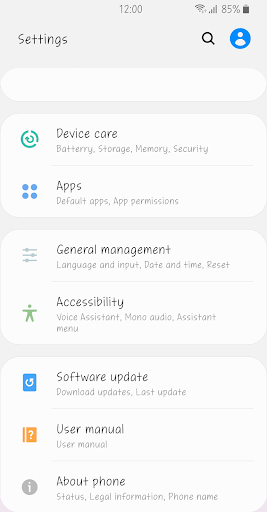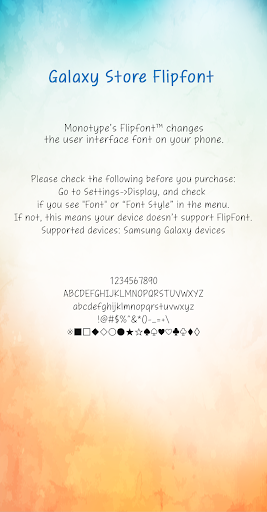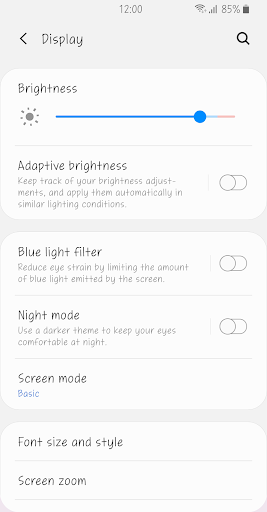
Fine Anewday
It is a handwritten font that does not change much in thickness.
The natural form of comfort and decorationless shape is filled with warm emotions optimized for mobile devices.
A lively appearance exude a refreshing charm.